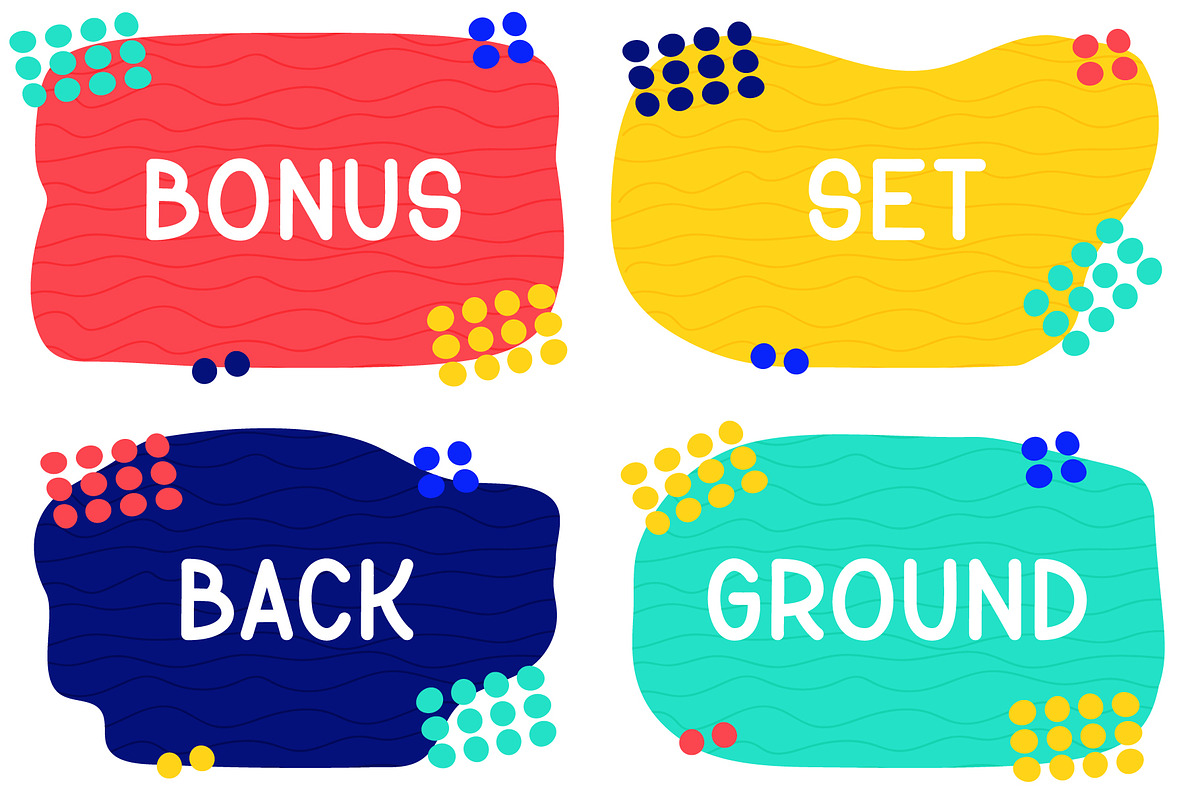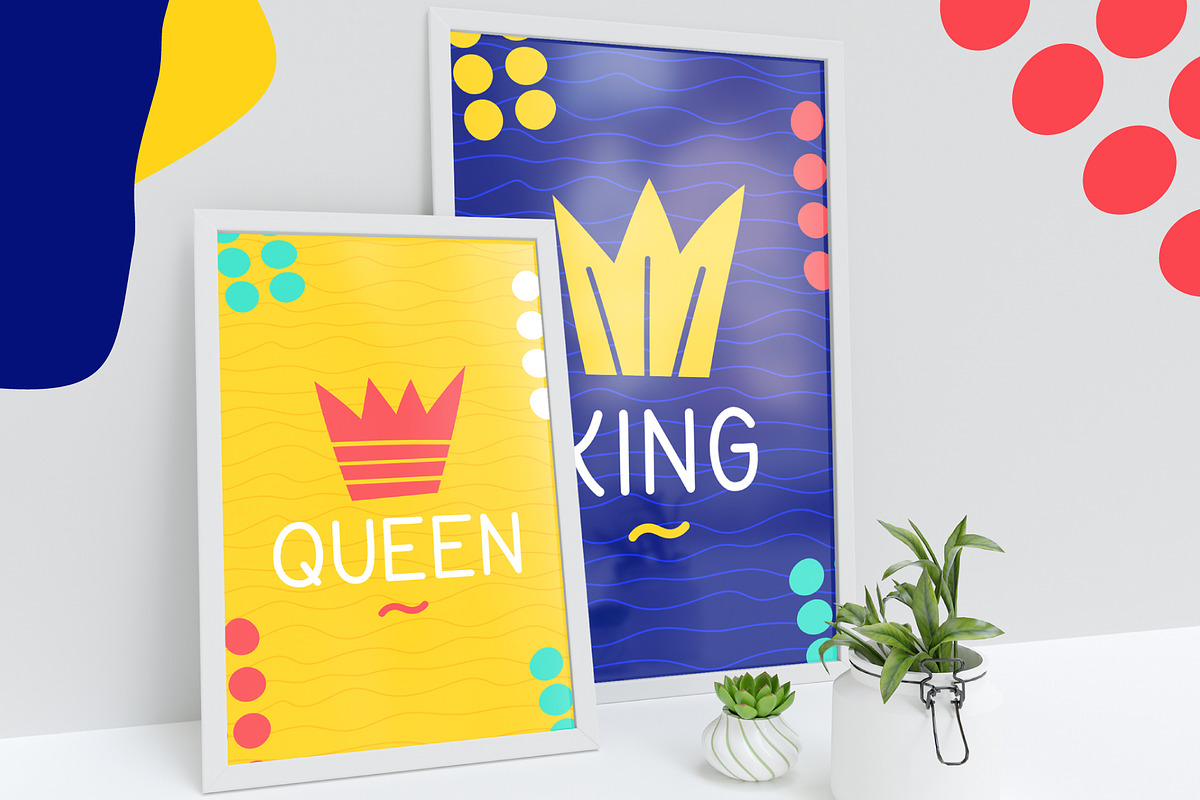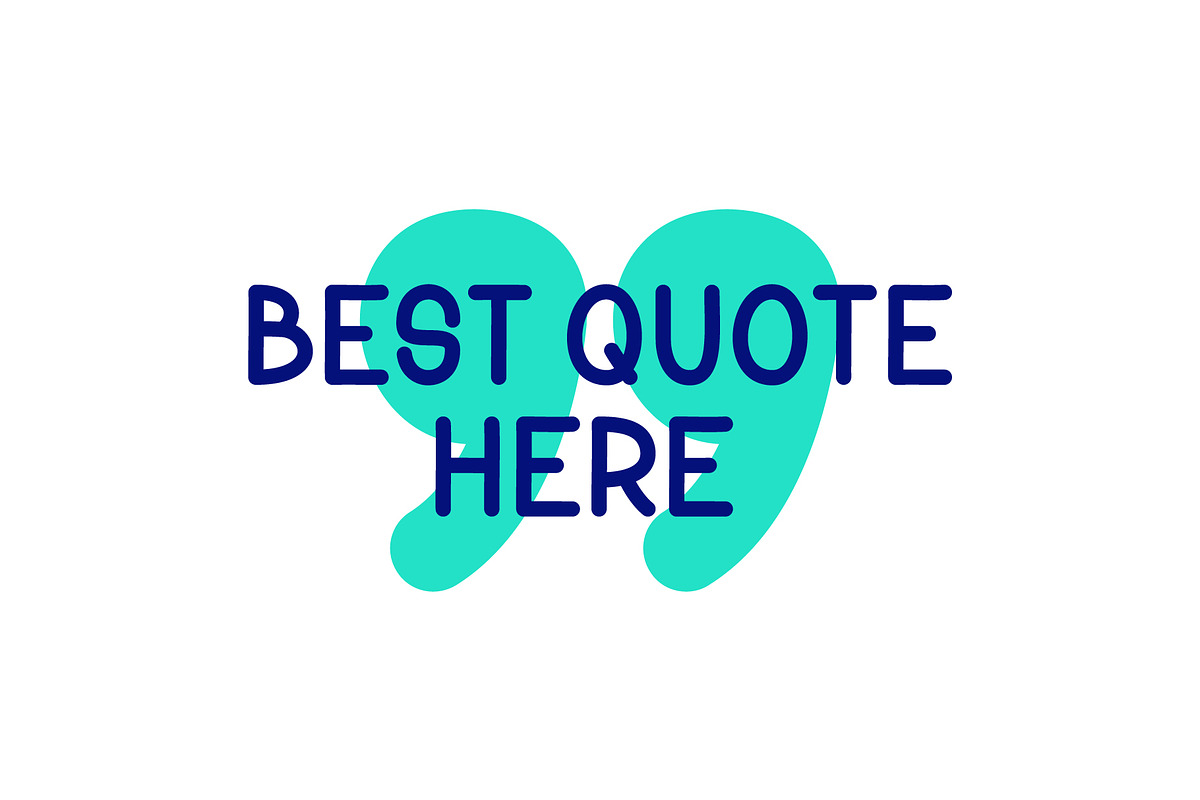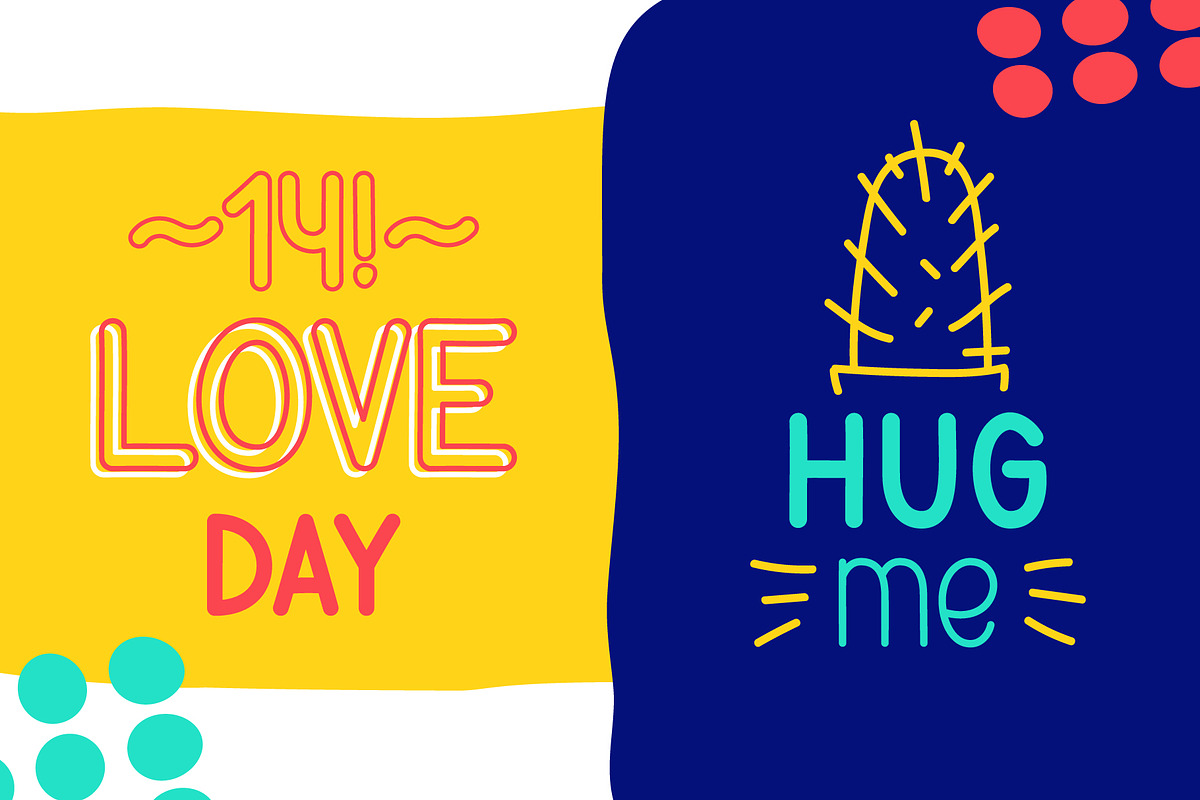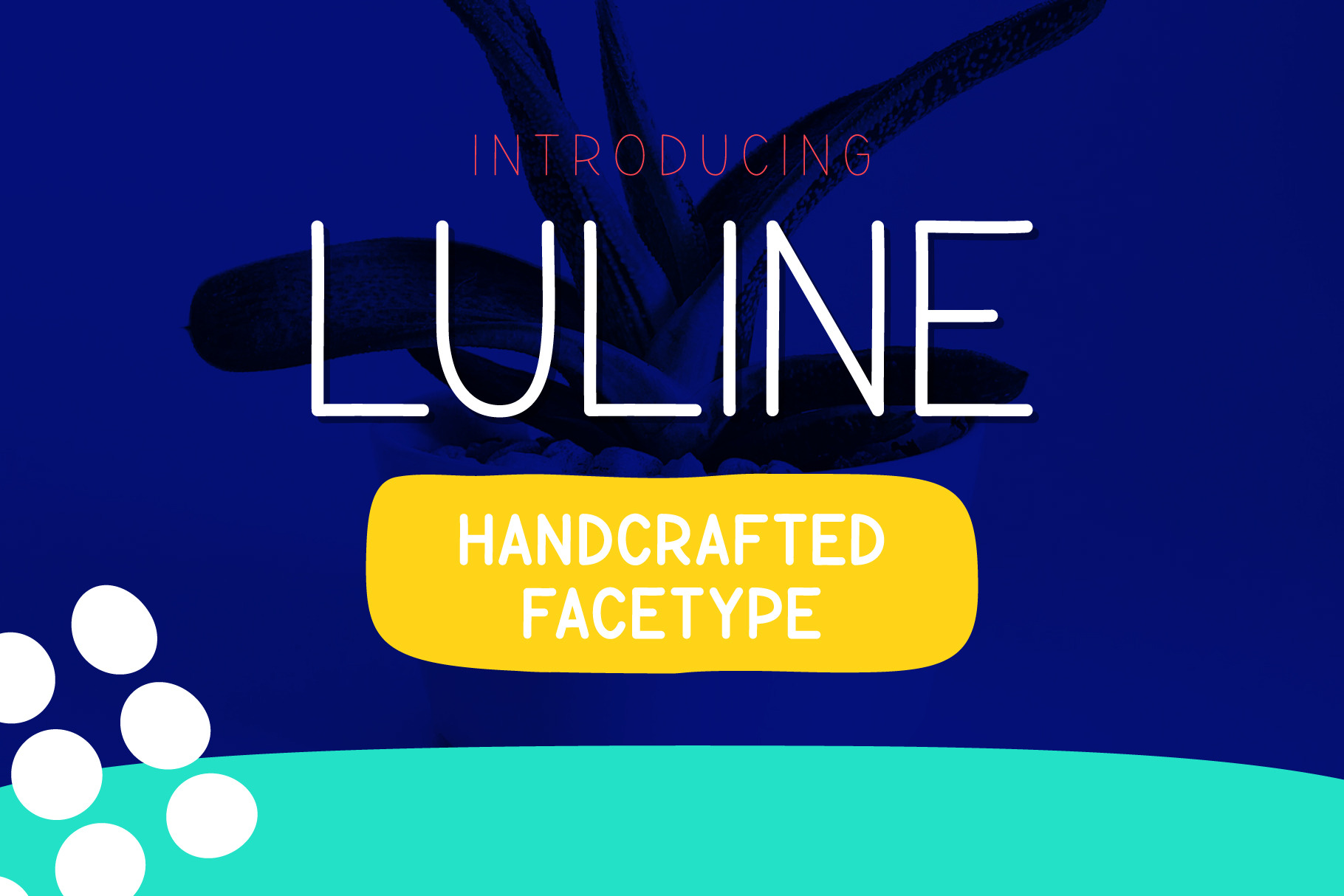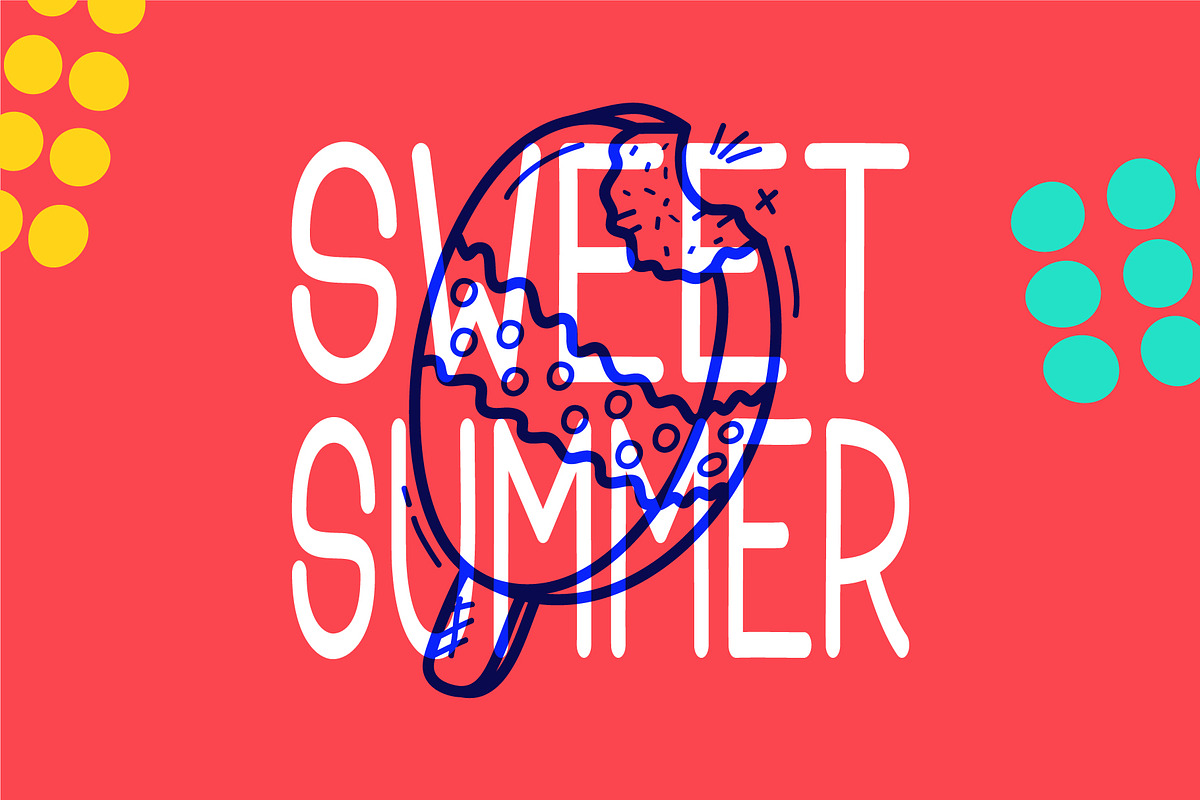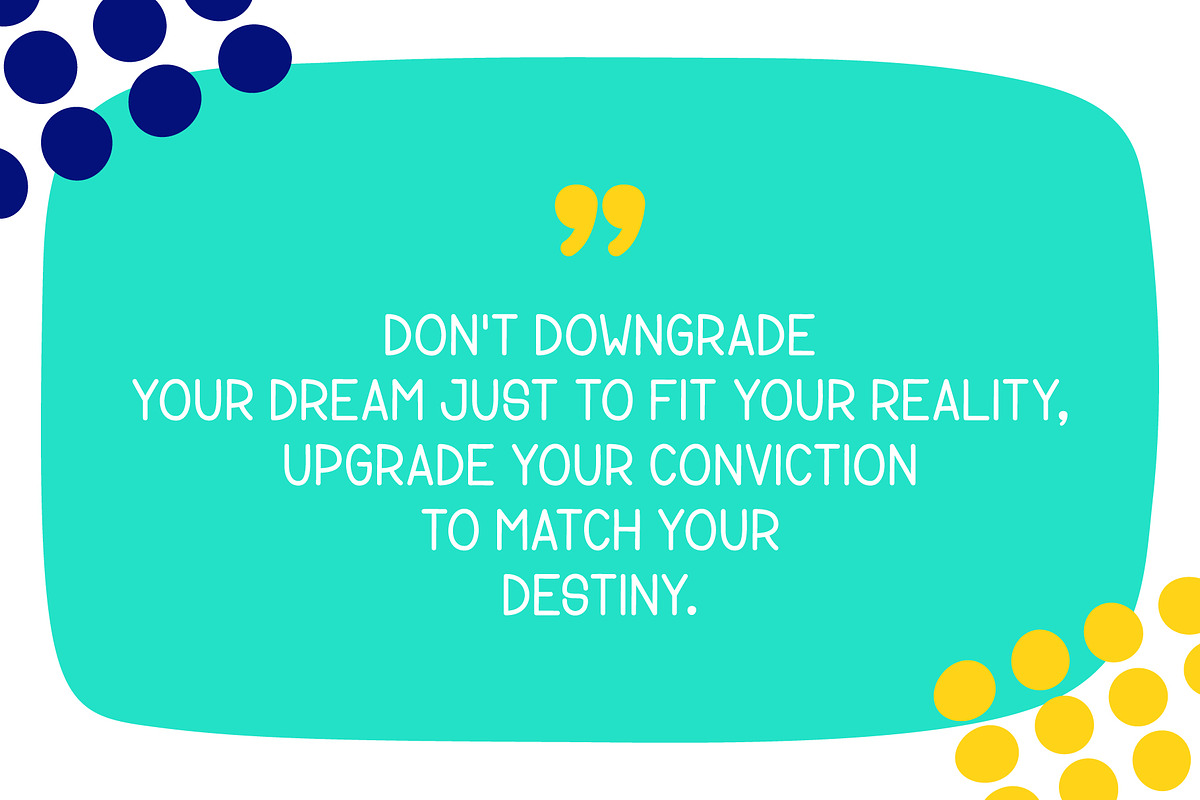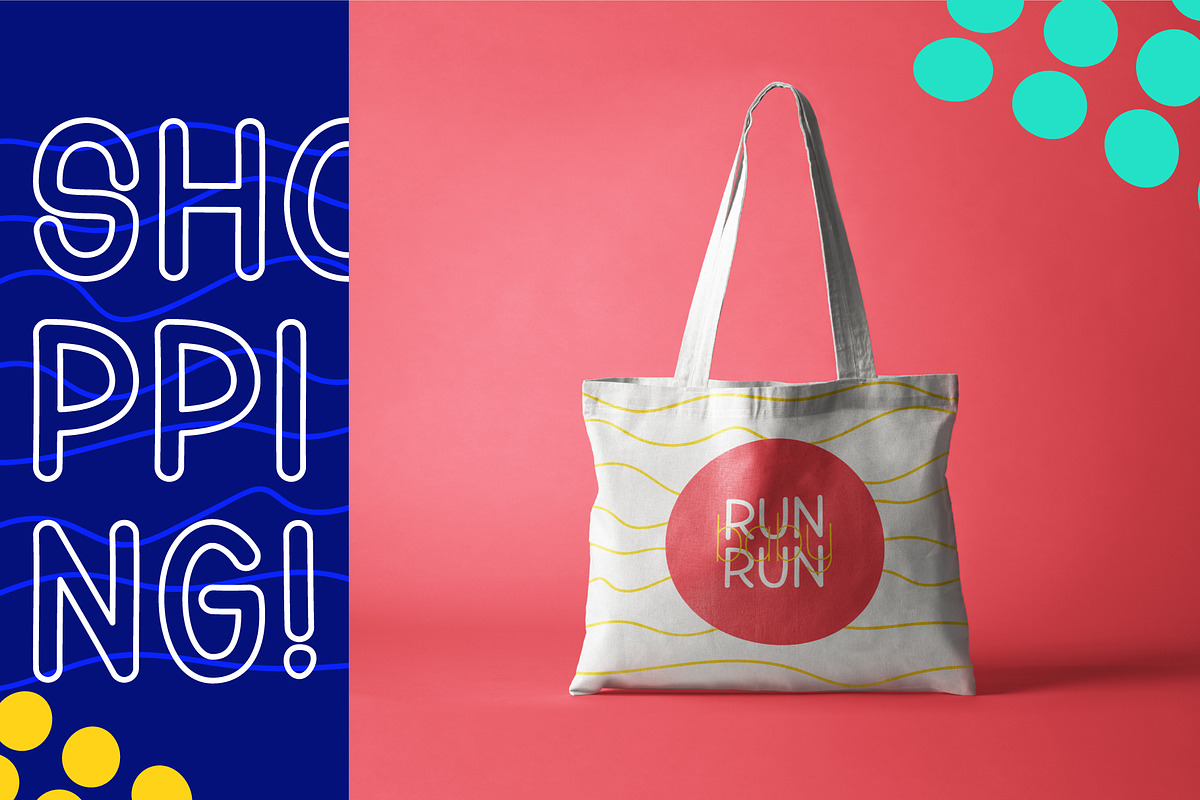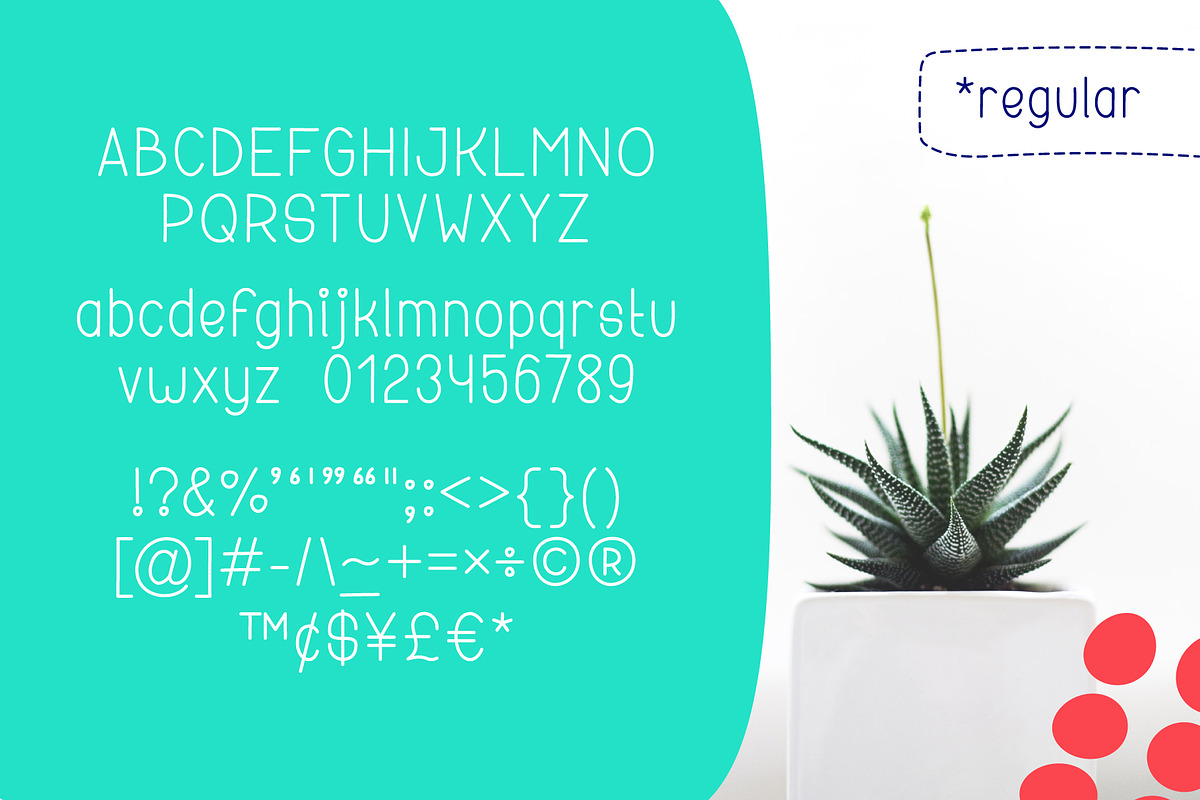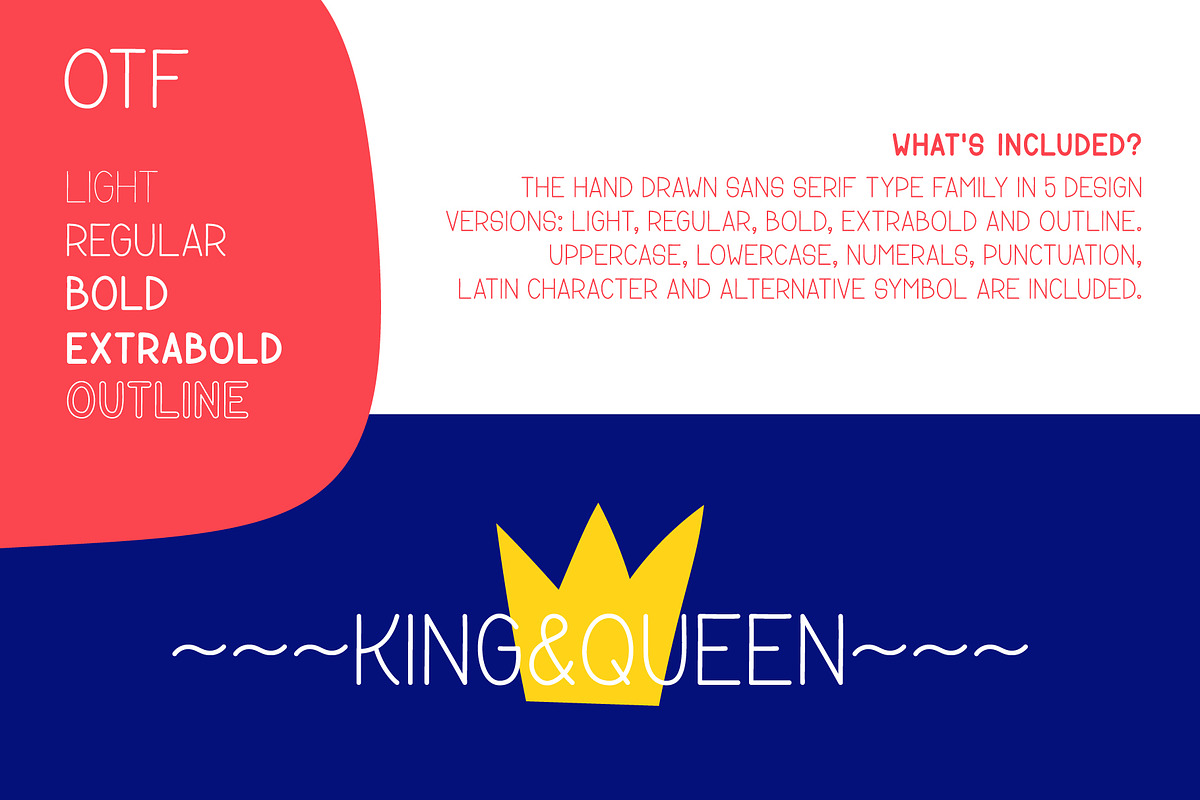
Luline Handwritten Font
The Luline is a handcrafted typeface. It has stylish and simple characters and is perfect for holiday or travel themed designs. It can also be used for headings, signature’s, logos, wedding invitations, t-shirts, letterheads, signage’s, labels, and much more!